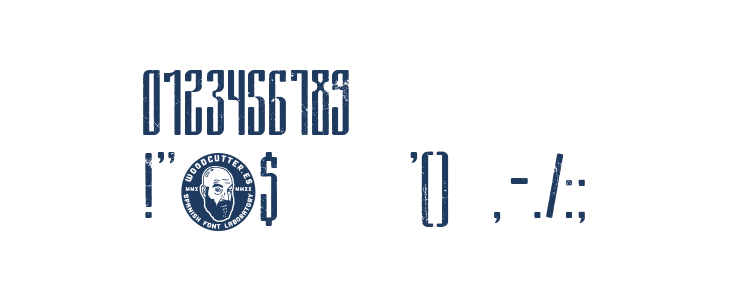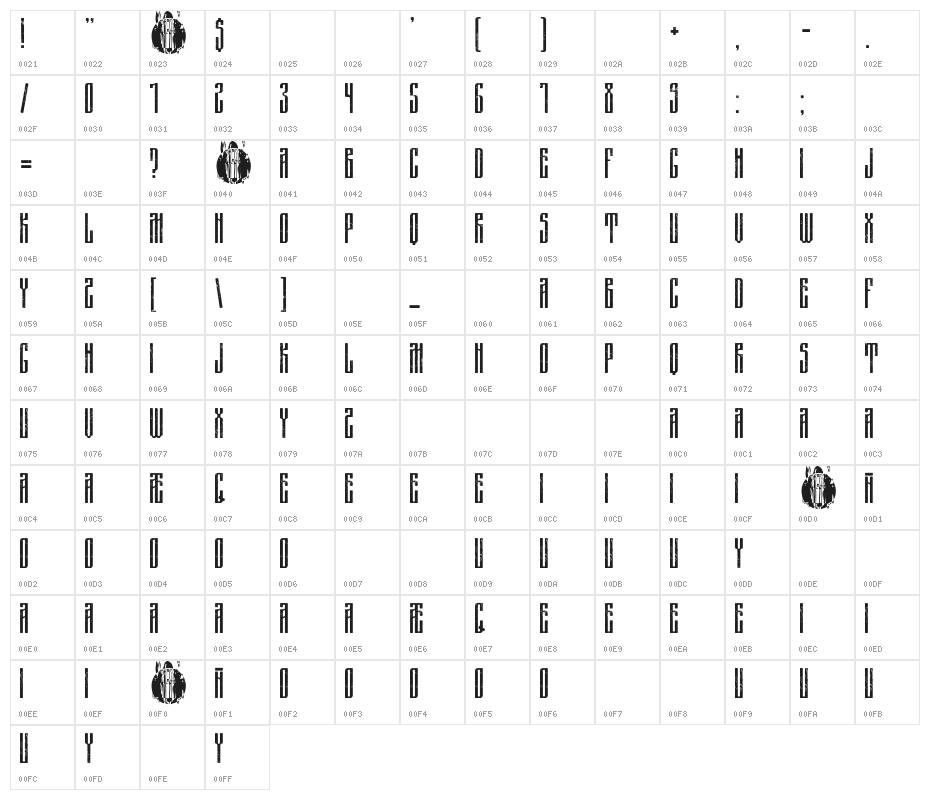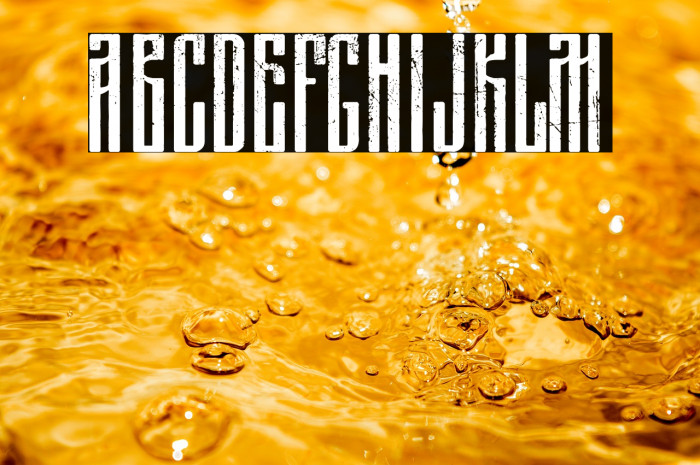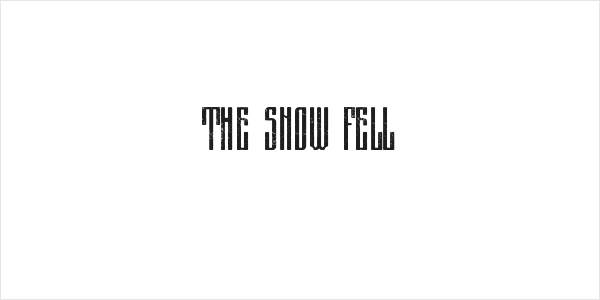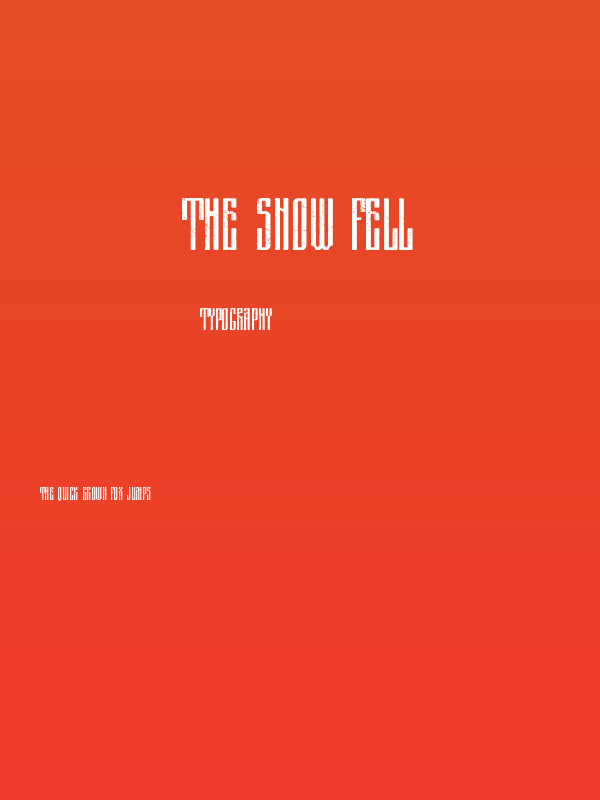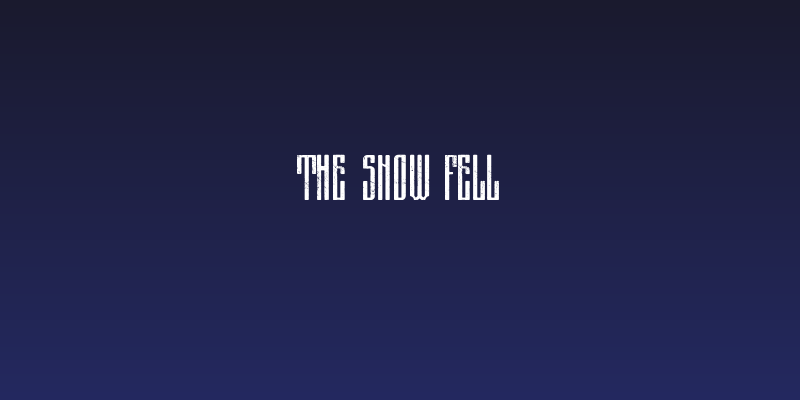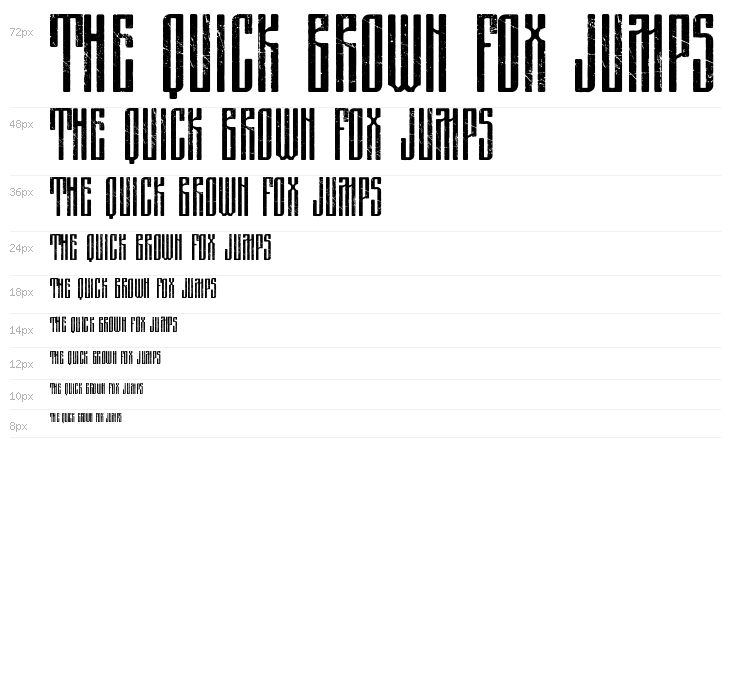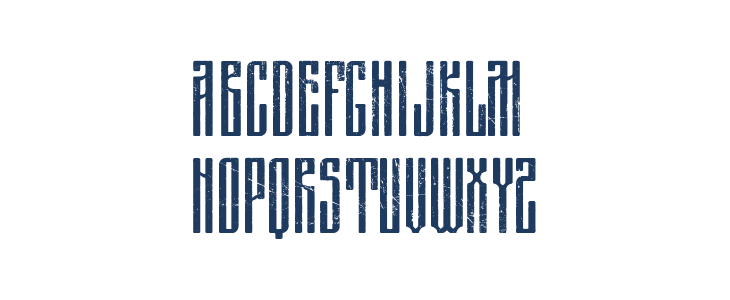
The Snow Fell Font
The Snow Fell Description
This font features a bold, distressed style with a tall and narrow structure. The characters are elongated with a consistent vertical emphasis, giving them a striking appearance. The distressed texture adds a rugged, vintage feel, making it suitable for designs that require a worn or aged look. The uppercase and lowercase letters maintain a uniform height, contributing to its cohesive and structured appearance. The numerals and special characters follow the same design principles, ensuring consistency across all glyphs.
| Proposed Projects | Ideal for posters, album covers, branding projects, and any design that seeks a vintage or industrial aesthetic. |